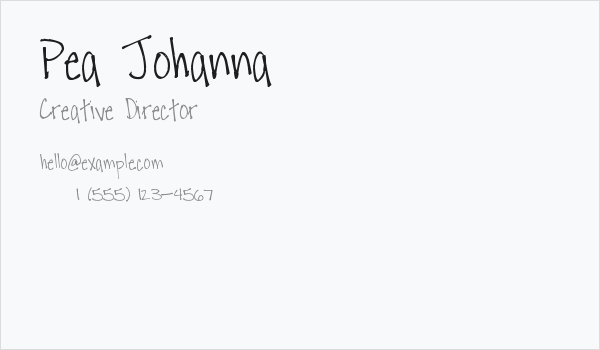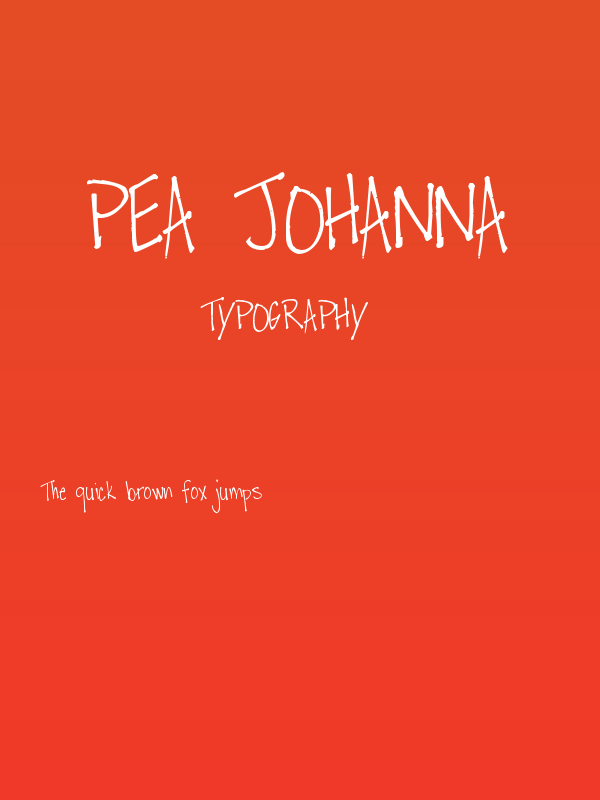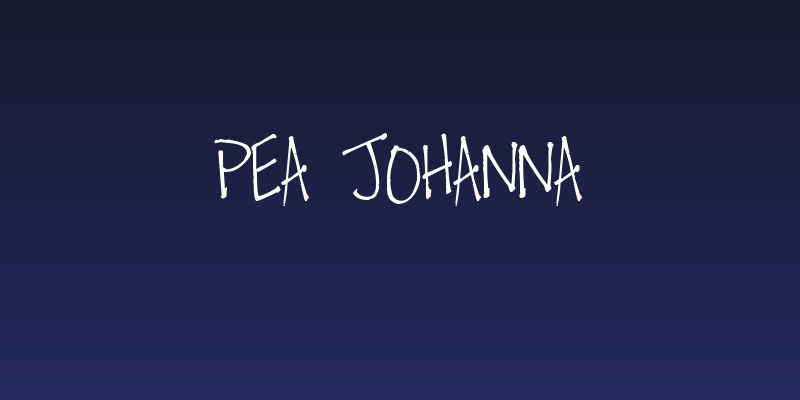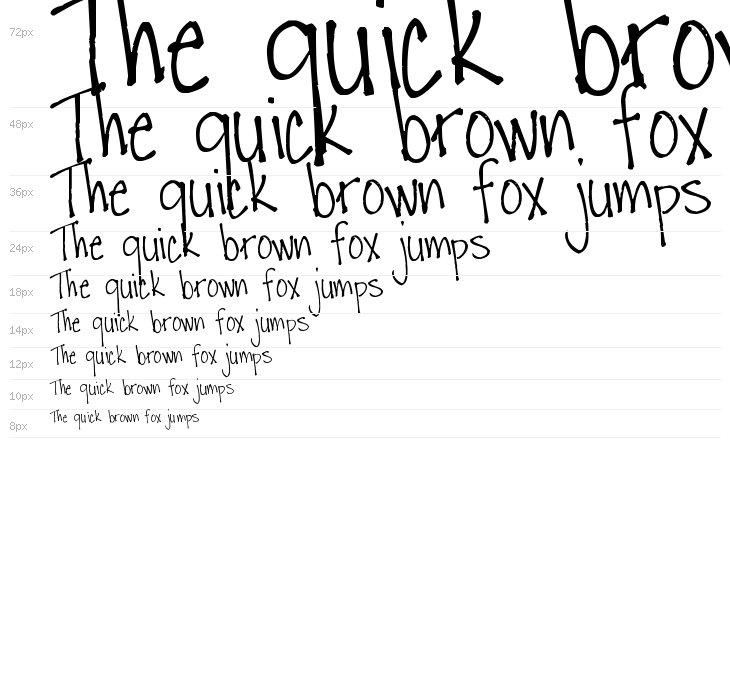
Pea Johanna Font
Pea Johanna Description
This font exudes a playful and casual handwritten style, characterized by its irregular strokes and informal appearance. The letters are slightly slanted, giving a dynamic and lively feel. The uppercase and lowercase letters maintain a consistent flow, while the numbers and special characters complement the overall aesthetic. The font's organic and spontaneous look makes it ideal for projects that require a personal touch or a relaxed vibe.
| Use Case | Logos, Invitations, Social Media Graphics |
| Proposed Projects | Ideal for greeting cards, personal blogs, children's books, and informal branding. |